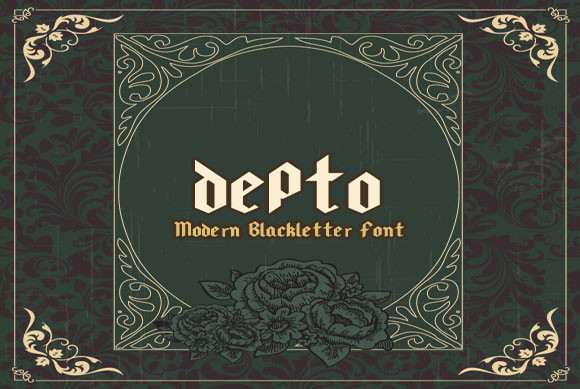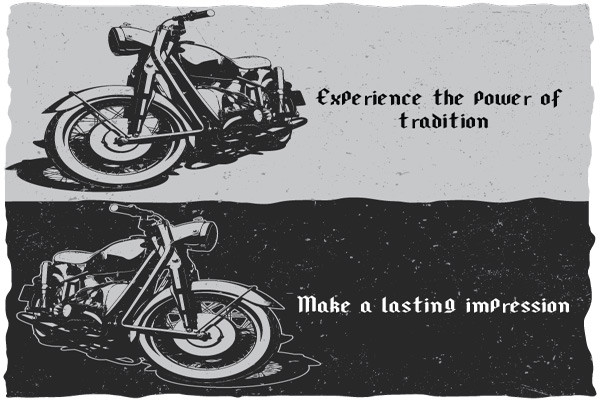
About Depto Font
Depto is a vintage-inspired font that pays homage to the traditional blackletter calligraphy of the medieval era. With its unique, ornate letterforms, Depto Blackletter is the perfect choice for projects that require a touch of classic elegance and sophistication. Whether you’re creating a vintage-style poster or a modern logo, Depto has everything you need to bring your vision to life.